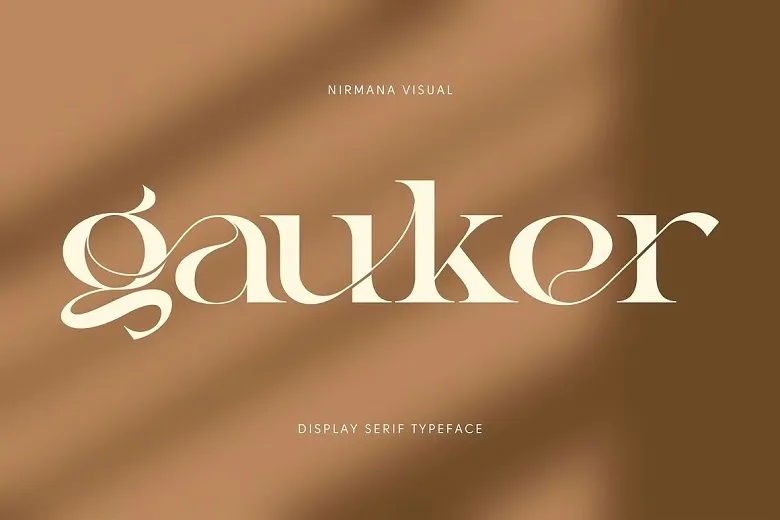
Gauker Font
Gauker is a display serif font that is designed with fine characters cut good to meet today’s fashion. It is created and posted by the Nirmana Visual and the above statements are true for this question. The column Gauker Font introduces a splendid, aesthetic typography for many creations; for creativity including logos and branding, social networks and advertisements and products.
Gauker Serif Font